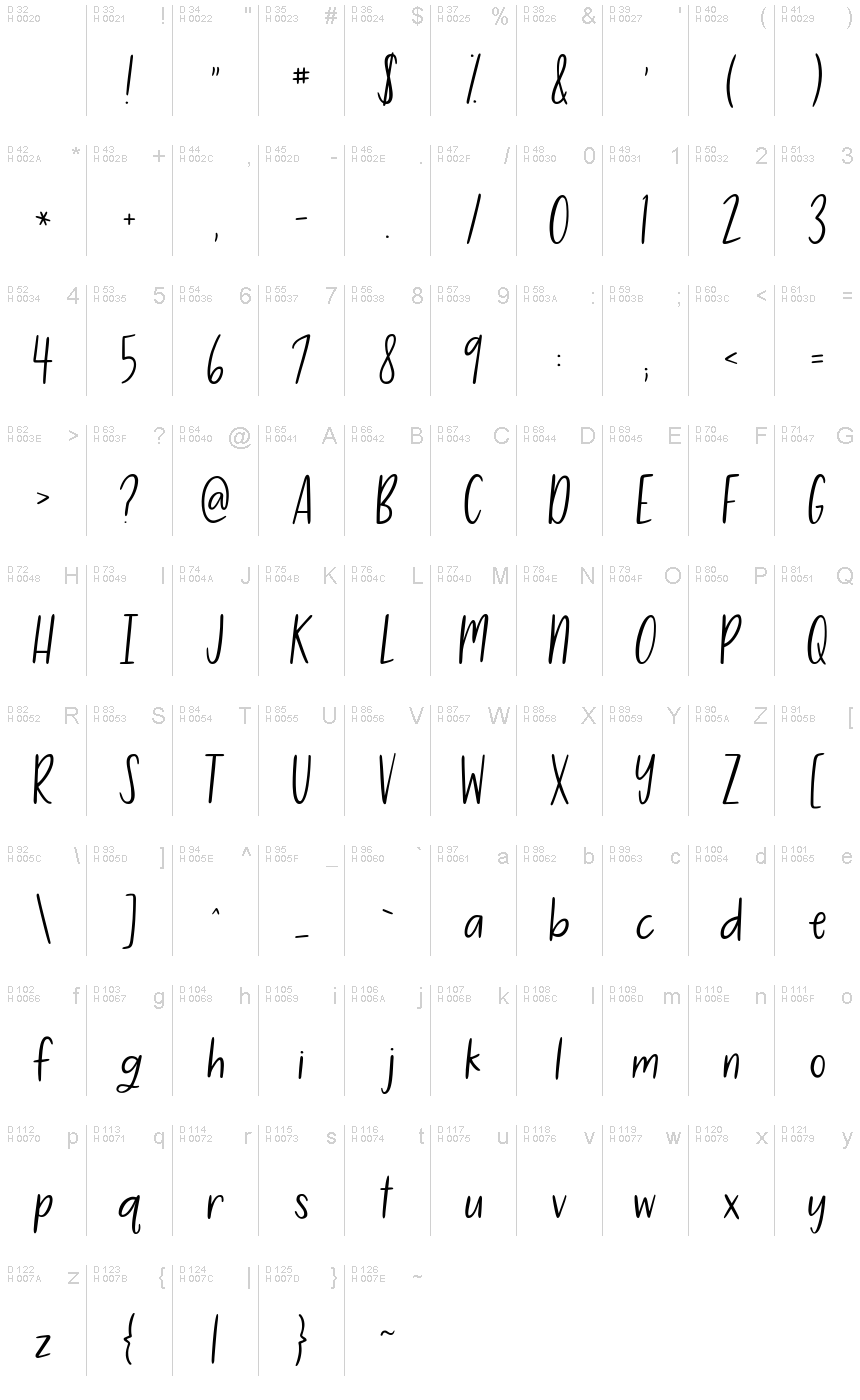
KG Lovin On Me Normal
KG Lovin On Me, crafted by Kimberly Geswein, exudes a personal touch with its handwritten style that brings an intimate and bespoke charm to any project. Its condensed form enhances the cozy and friendly vibe, making the letters seem as though they're huddling together like close friends. The playful yet elegant strokes give it a versatility that's perfect for invitations, greeting cards, and branding that aims to convey warmth and individuality.
This font's appeal lies in its ability to marry casual flair with a sense of sophistication, making it ideal for designs seeking to leave a memorable impression through a personalized approach. Whether it graces the pages of a heartfelt letter or adds character to boutique packaging, KG Lovin On Me invites a closeness that resonates in every curve and line.